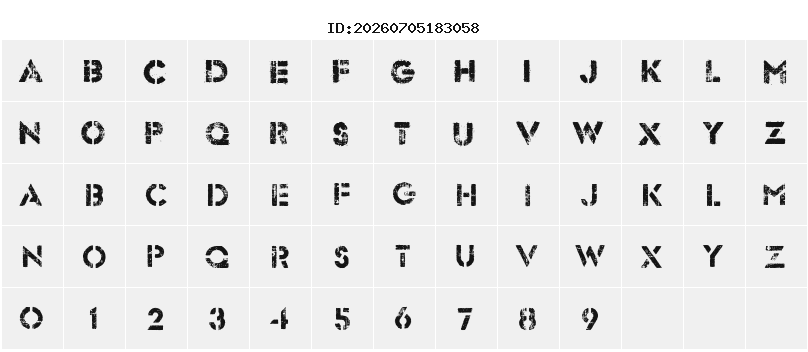
Dock 51 Preview
• Font Name: Dock 51
• Full Font Name: Dock 51
• Version: Version 1.00 September 15, 2011, initial release
About Dock 51.ttf
Dock 51.ttf is a modern, elegant sans-serif font designed for ultimate readability and visual harmony. Perfect for branding, headlines, web design, and print materials.